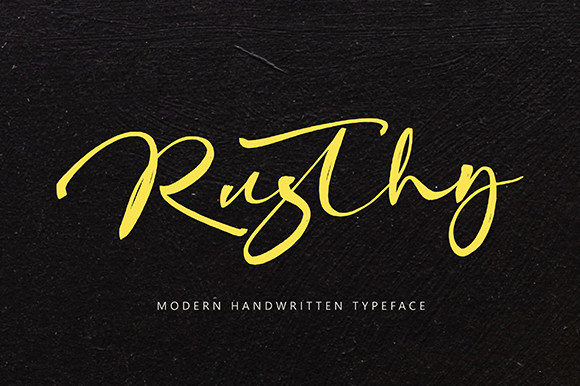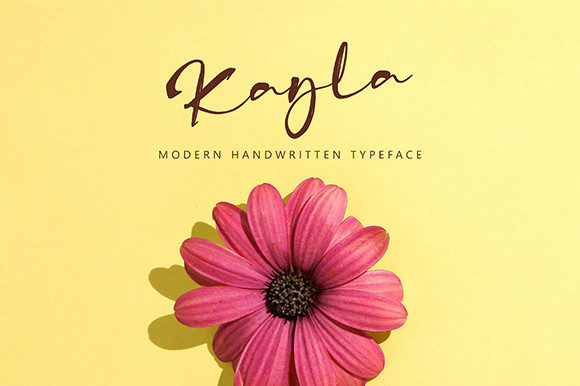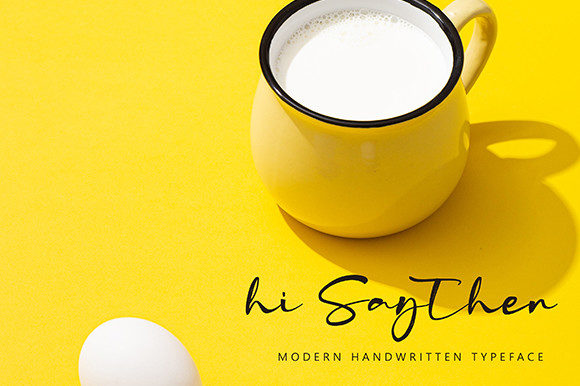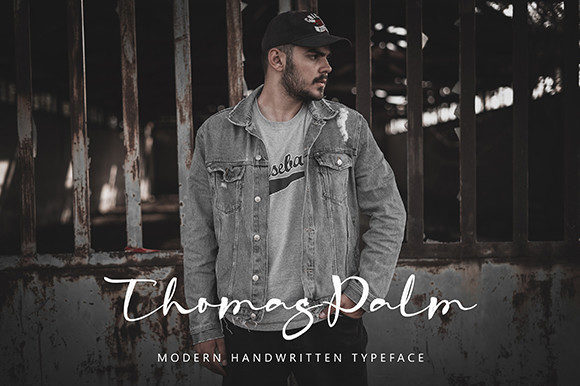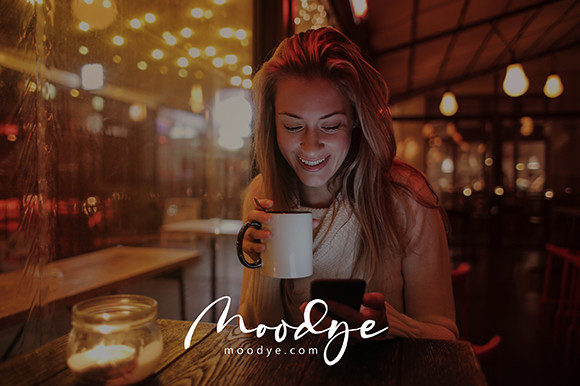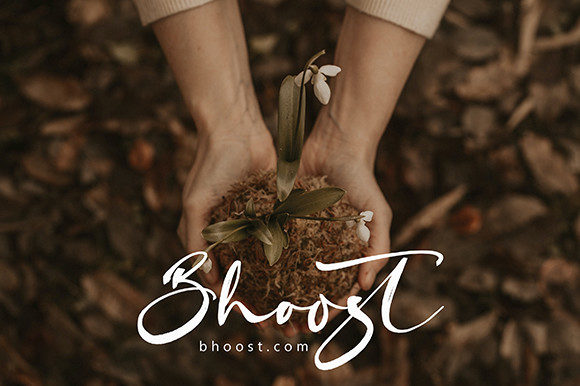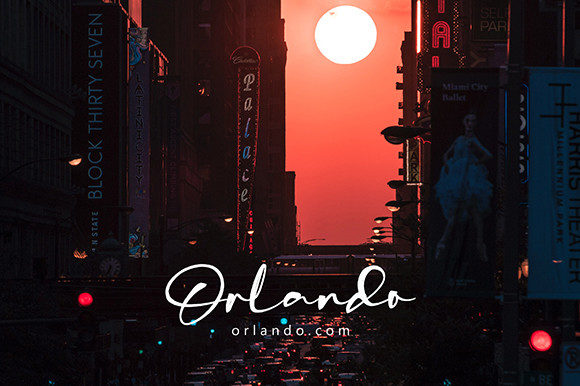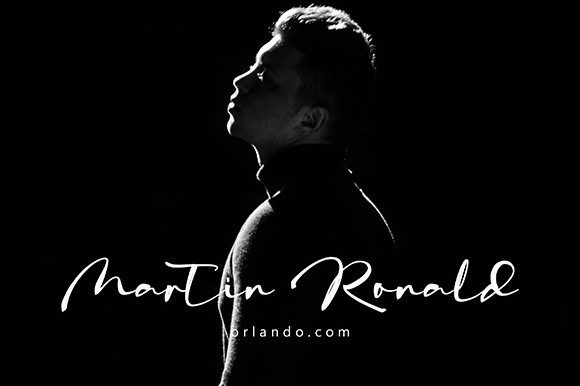
Rusthy Font
About Rusthy Font
Rusthy is a lovely handwritten font that looks cursive and very natural. Use it for creative projects that need authentic and stylish typography!